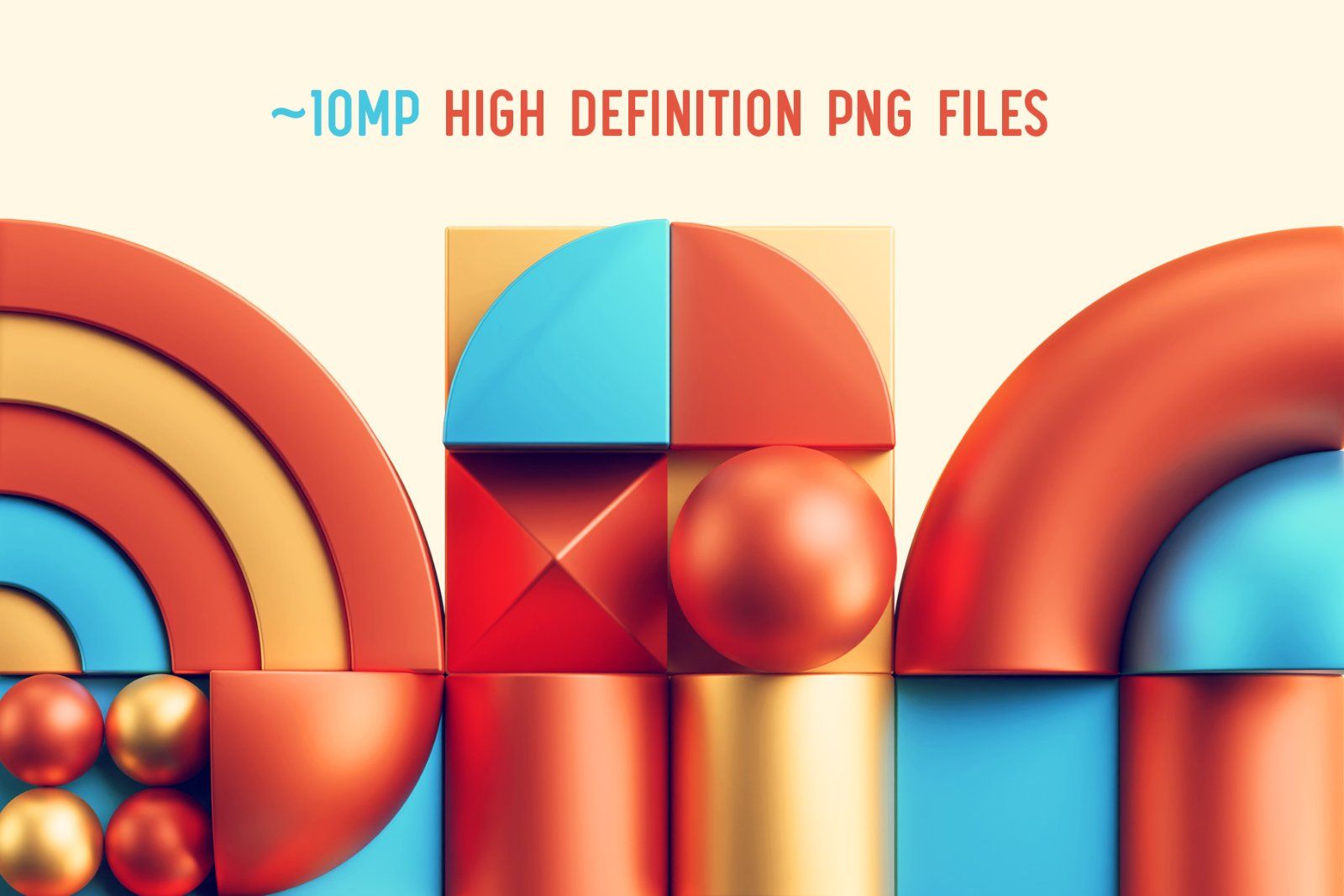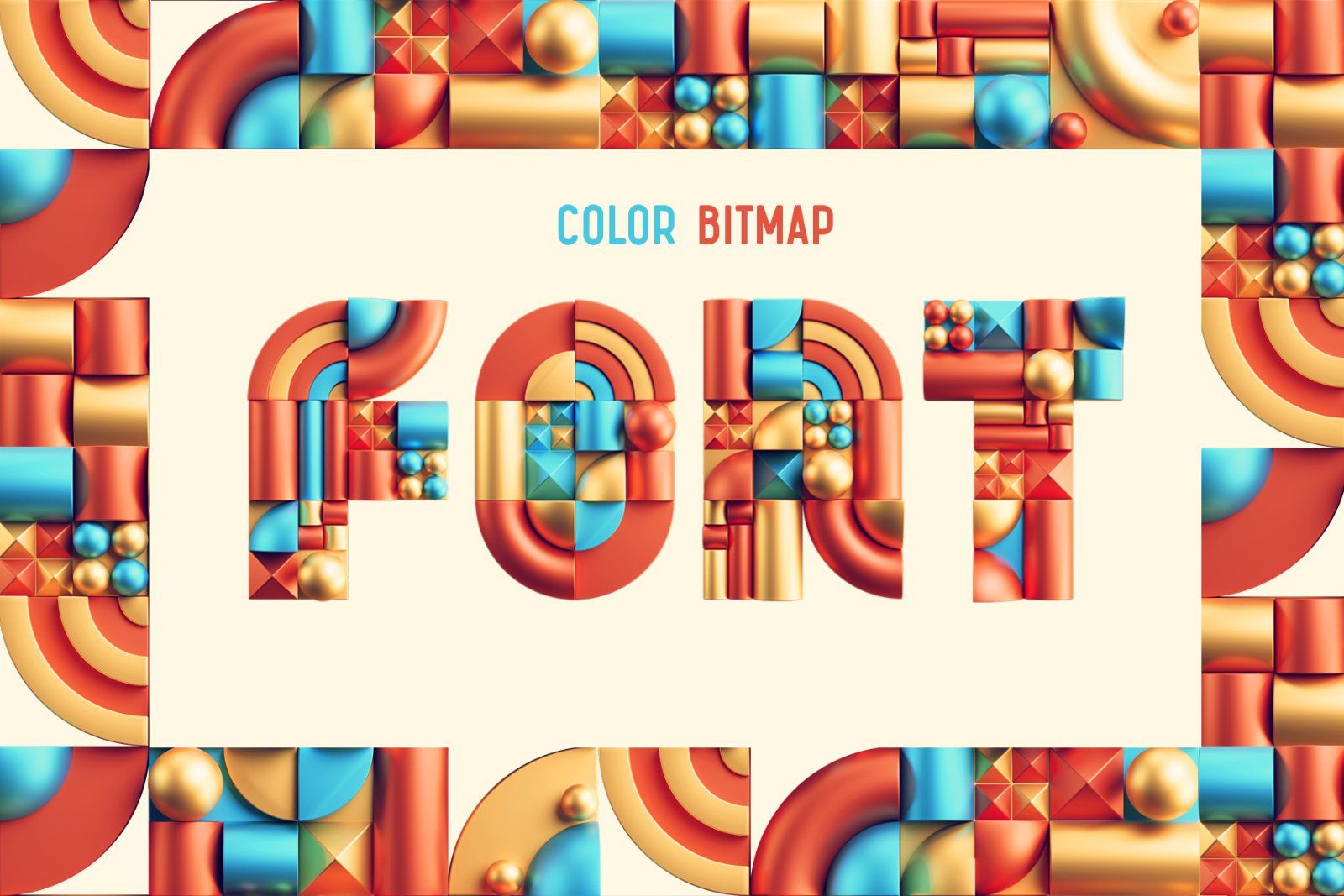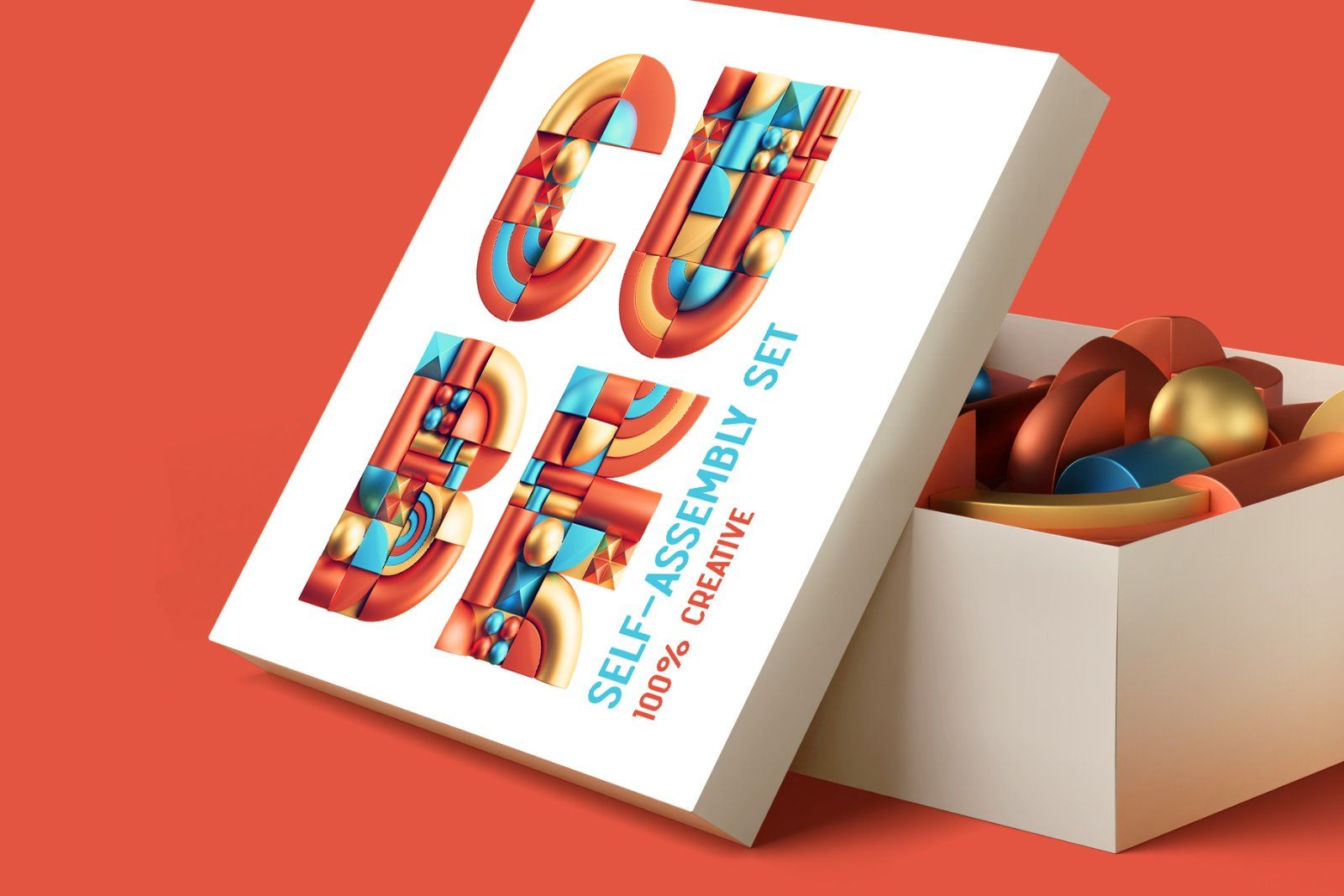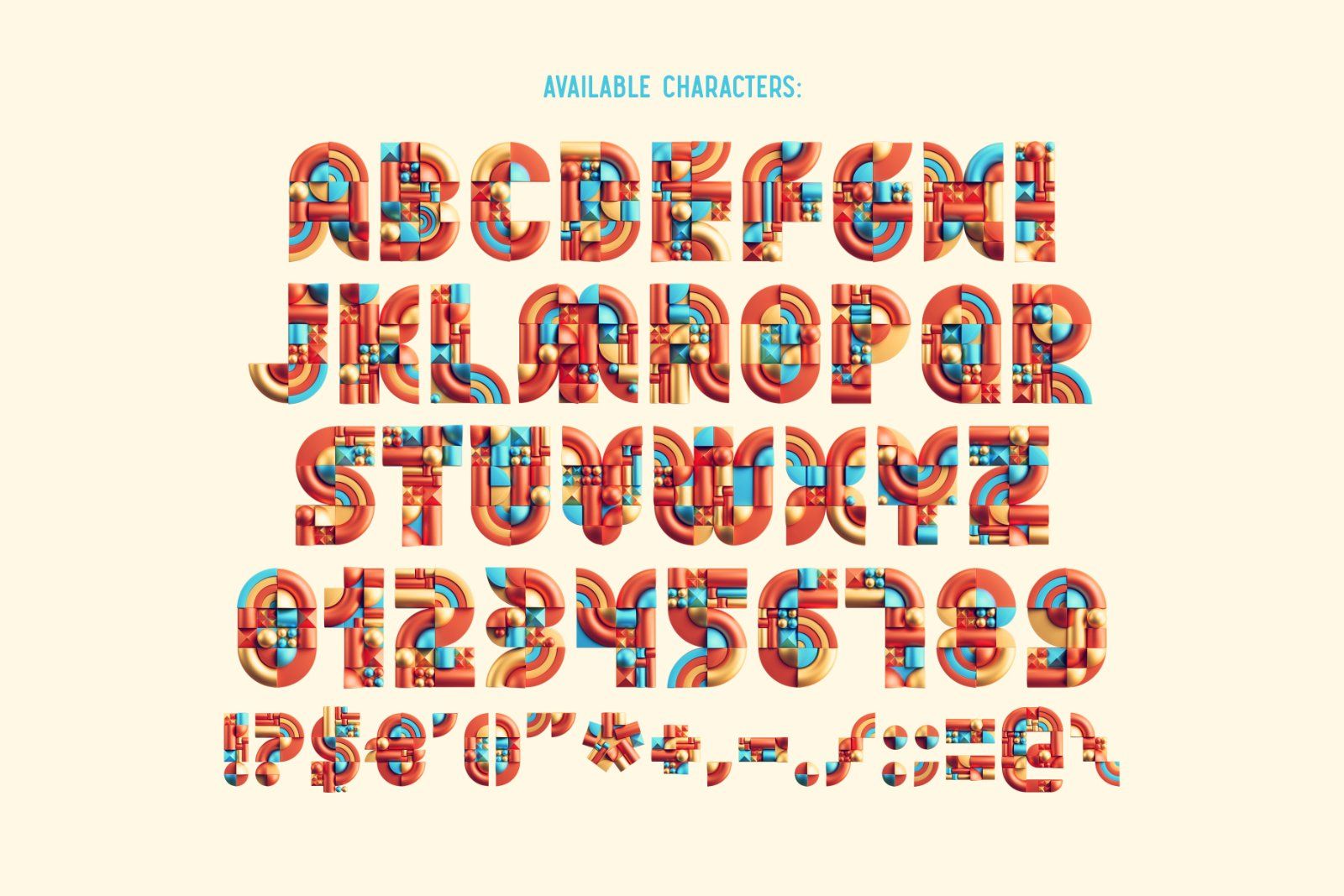
Hello! Presenting a bright font set – BLX. It's a 3d rendered high quality typeface with abstract geometric shapes. First of all it's a color bitmap OpenType-SVG font that can be used as a usual OTF font.
Also a set of full resolution PNG files with transparent background is included (Average resolution is 10 megapixels). Consider that only English language and basic punctuation is supported, please check out the screenshot with all available characters.